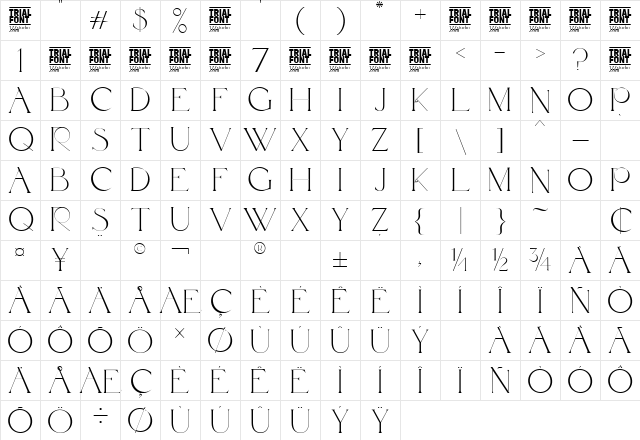
Rekeep Desired Demo Regular
Design Context for Rekeep Desired Demo
Rekeep Desired Demo is a composed and adaptable typeface that performs quietly and consistently across a wide range of design contexts.